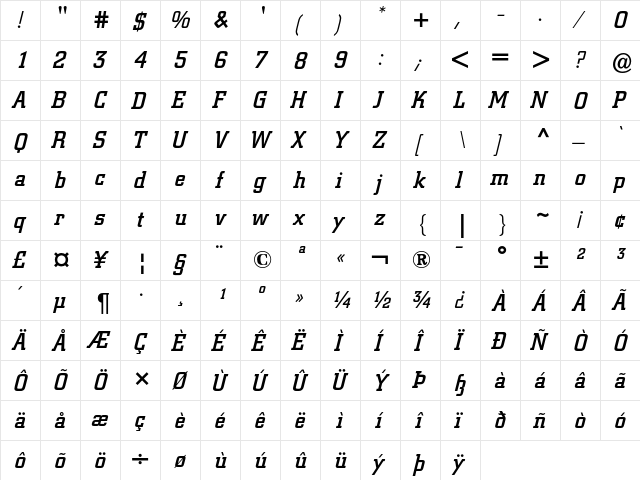
Berthold City Medium Italic
Design Context for Berthold City Typeface
Berthold City is a composed and adaptable typeface that performs quietly and consistently across a wide range of design contexts. Its italic angle brings a sense of urgency and motion to the letterforms.
Pro Tip: Use Berthold City for emphasis, pull quotes, and subheadings where its slanted energy can add rhythm to the layout.